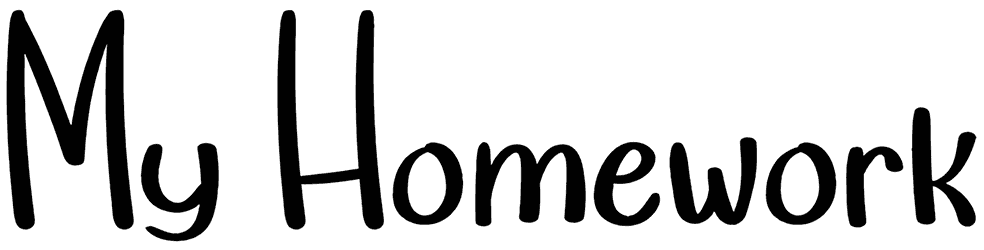
My Homework Font
Since a good font must be cohesive with the content of your graphic projects, we strongly recommend you pick up a handwritten font such as My Homework for designing stickers, social media posts, web page templates, banner ads, or menus.
My Homework is a sweet and friendly handwritten font. Its authentic look and feel will add a personal and realistic feel to your designs.